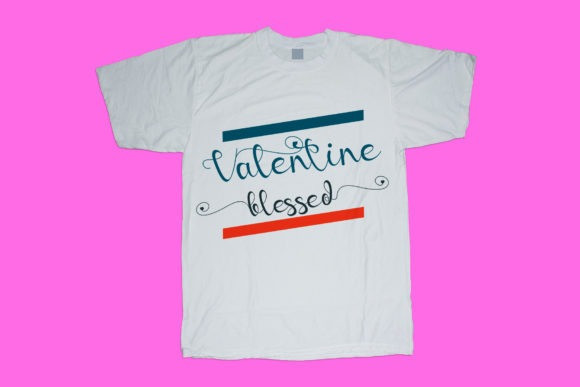
Jennifer Ellis Calligraphy Font
Jeniver Ellis is a handwritten font made with an enhanced pen brush to make it look clean and neat.
You can use this font for wedding invitations, greeting cards, quotes, logos and much more.